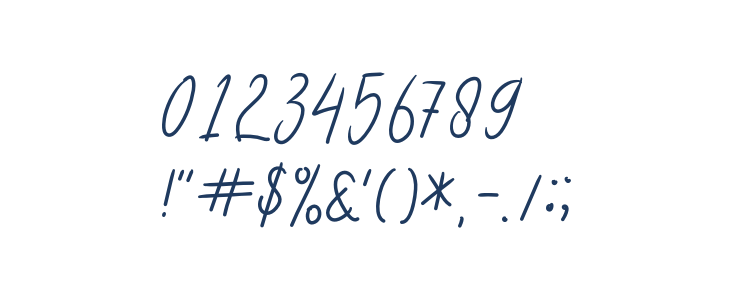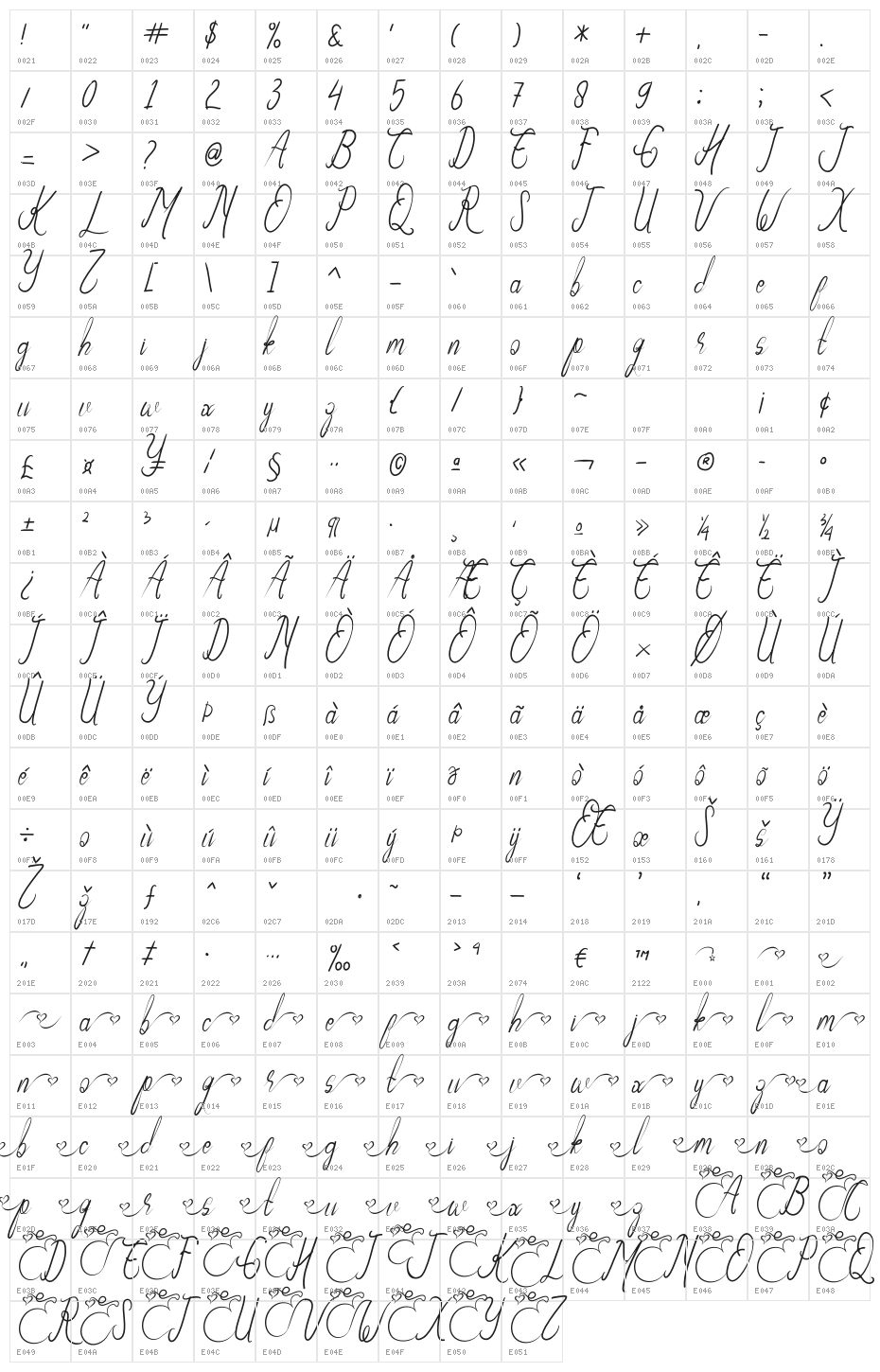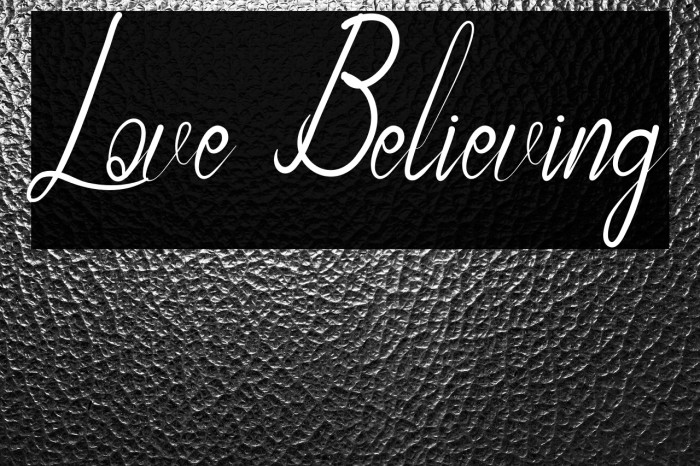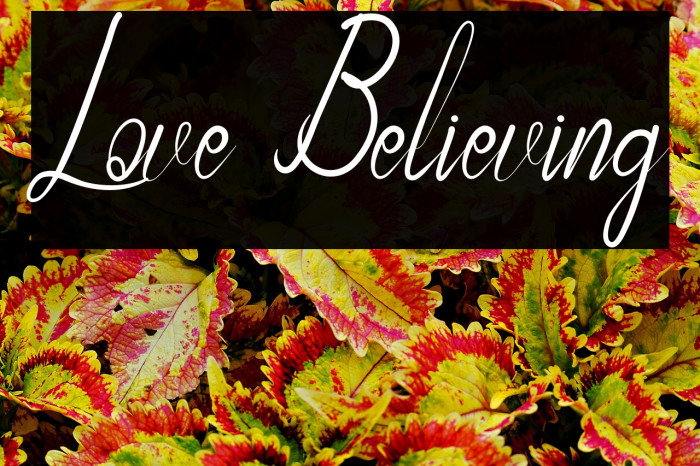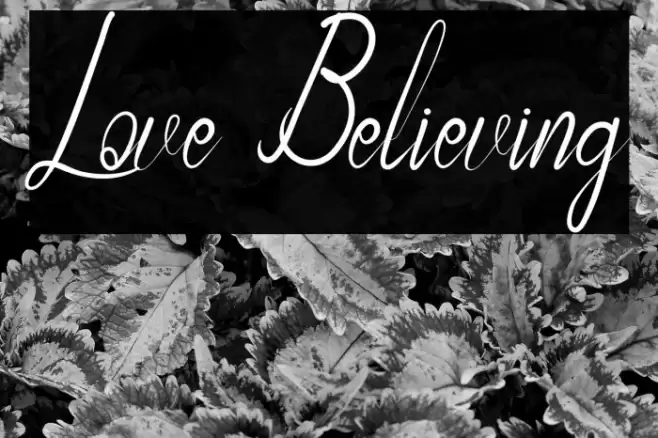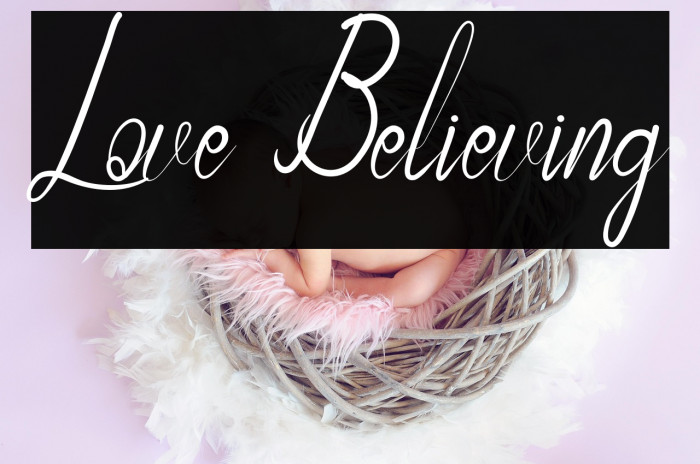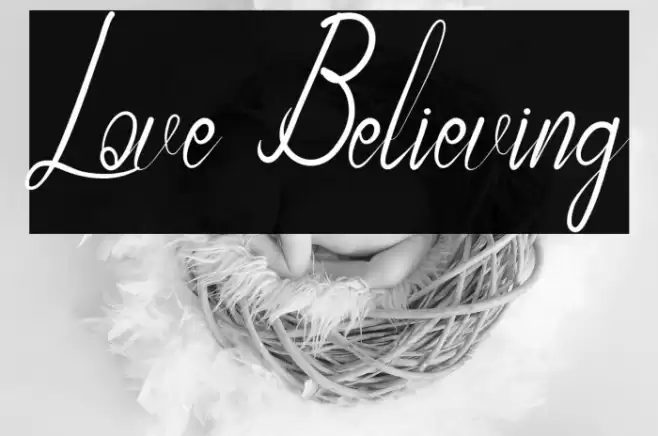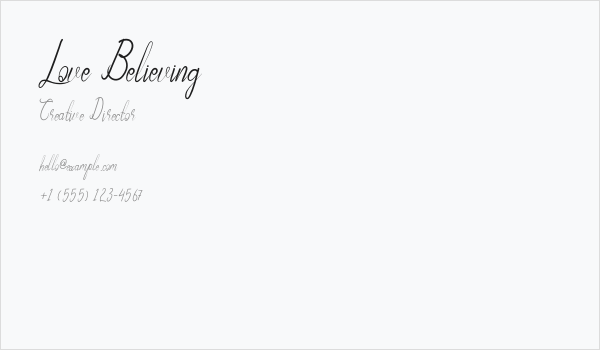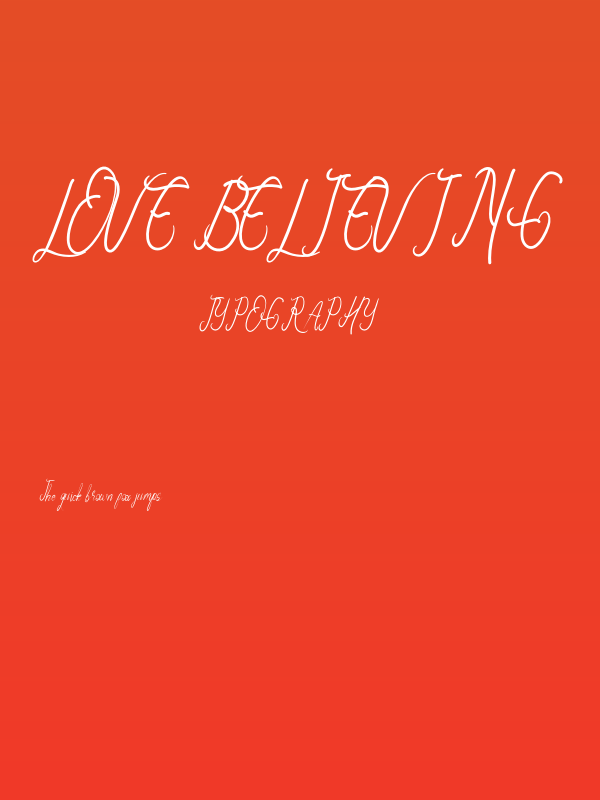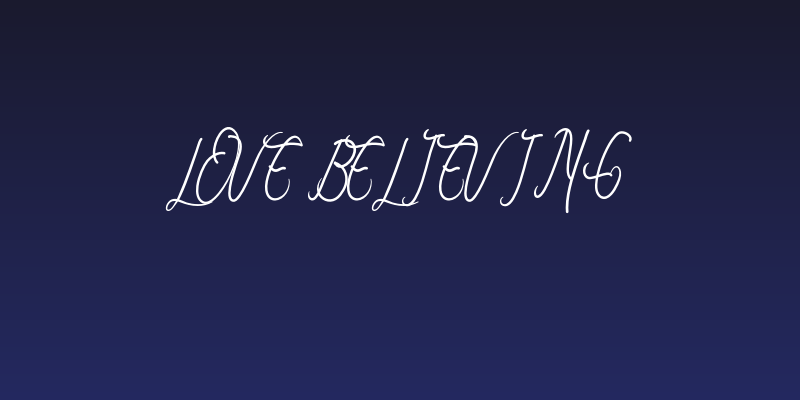
Love Believing Font
Love Believing Description
This elegant script font features fluid, connected strokes that emulate the look of traditional cursive handwriting. The uppercase letters are tall and graceful, with sweeping ascenders and descenders that add a touch of sophistication. The lowercase letters maintain a consistent flow, enhancing readability while preserving an artistic flair. Numbers and special characters are designed to match the overall style, ensuring a cohesive appearance. The font's delicate lines and smooth curves make it ideal for projects that require a personal, handwritten touch.
| Overall Style | Elegant |
| Use Case | Logos, Invitations, Personal Branding |
| Proposed Projects | Ideal for wedding invitations, greeting cards, personal branding, and elegant stationery. |